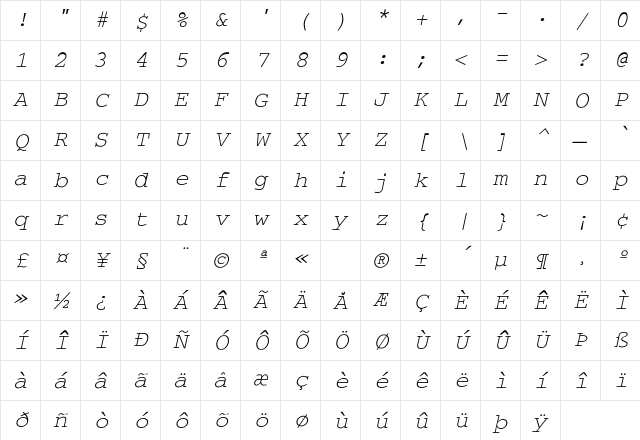
Bouvian-Oblique Regular
Design Context for Bouvian-Oblique
Bouvian-Oblique is a composed and adaptable typeface that performs quietly and consistently across a wide range of design contexts. The slanted form adds forward momentum and visual energy.
Pro Tip: Use Bouvian-Oblique for emphasis, pull quotes, and subheadings where its slanted energy can add rhythm to the layout.